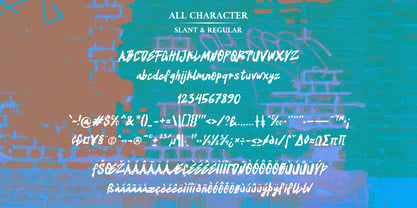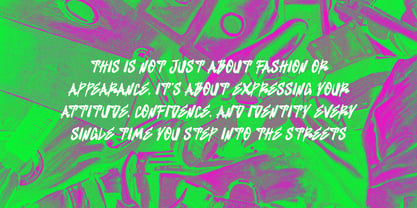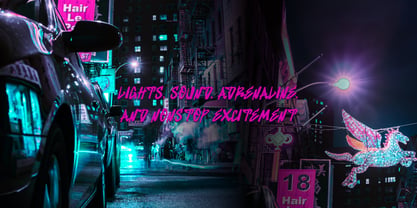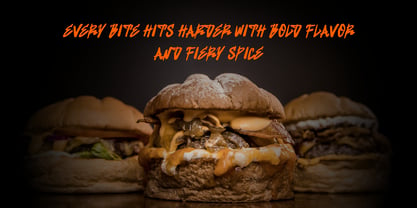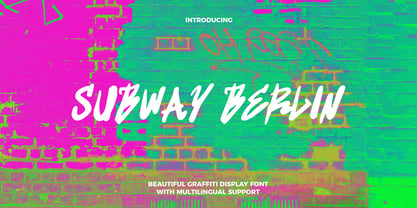
Subway Berlin
by Mei Suseno
The Subway Berlin Font Family was designed by Wahyu Eka Prasetya, Mei Suseno and published by Mei Suseno. Subway Berlin contains 2 styles and family package options. More about this family
Subway Berlin is a bold urban brush font inspired by street culture, graffiti art, and modern city aesthetics. Designed with energetic brush strokes and expressive handwritten details, this typeface delivers a strong, edgy, and authentic character perfect for creative branding projects.
Its rough yet stylish appearance makes Subway Berlin ideal for streetwear logos, food packaging, music posters, gaming thumbnails, social media content, advertising, and modern urban designs. The dynamic brush texture creates a raw handmade feel that instantly grabs attention and adds personality to every composition.
Whether you are creating bold headlines, eye-catching merchandise, or trendy promotional graphics, Subway Berlin brings a powerful street-style atmosphere with a modern creative touch.
Perfect For:
• Streetwear Branding
• Urban Posters
• Food & Beverage Designs
• Gaming Content
• Music Event Flyers
• Social Media Graphics
• YouTube Thumbnails
• Logo & Packaging Design
Designers: Wahyu Eka Prasetya, Mei Suseno
Foundry: Mei Suseno